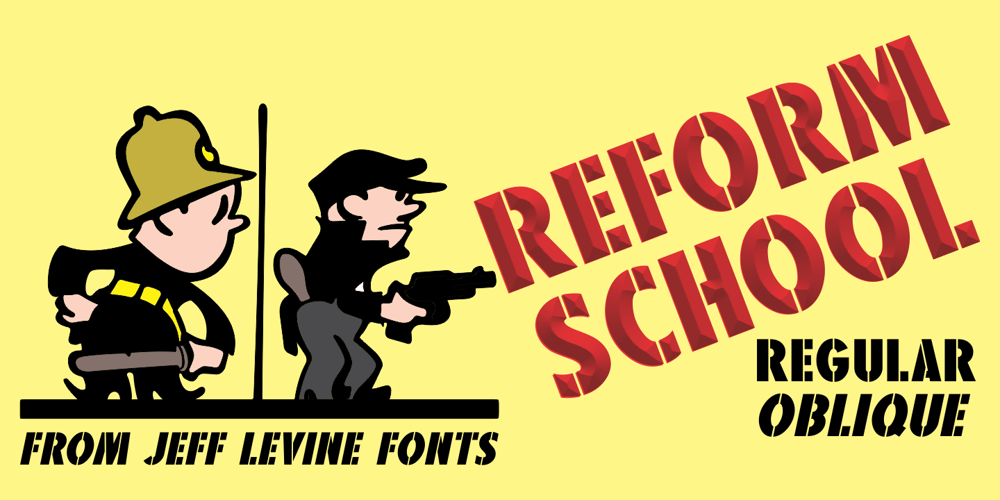
Reform School JNL Font Family was designed by Jeff Levine and published by Jeff Levine. Reform School JNL contains 2 styles and family package options. The extra bold sans serif stencil lettering on movie posters and lobby cards for “Reform School Girl” (a 1957 film by American International Pictures) was the basis of Reform School JNL, which is available in both regular and oblique versions.